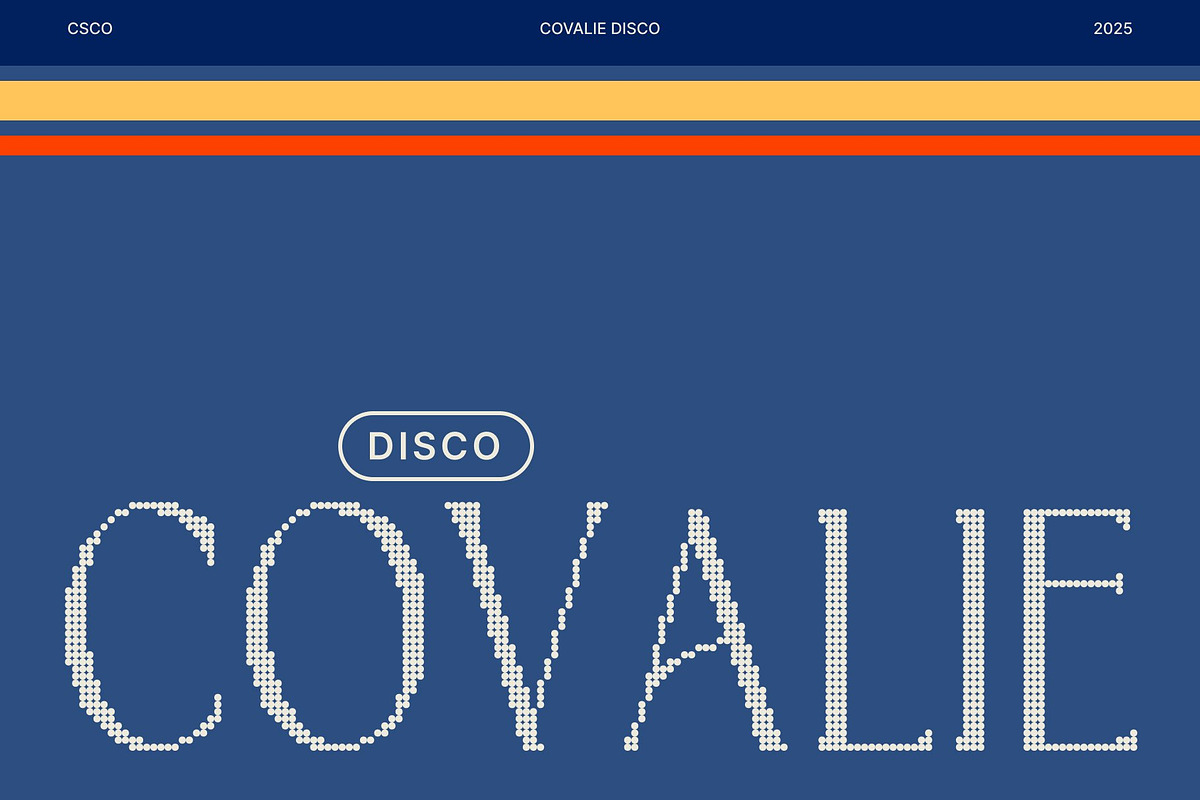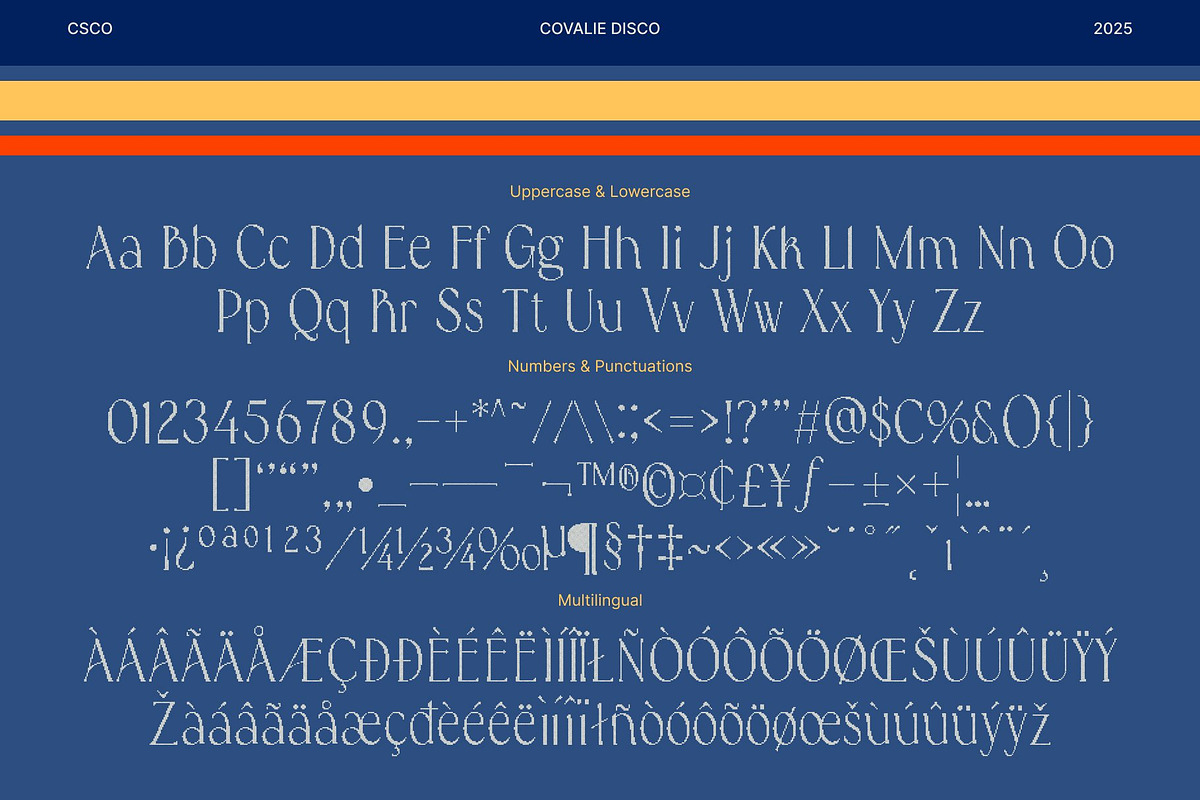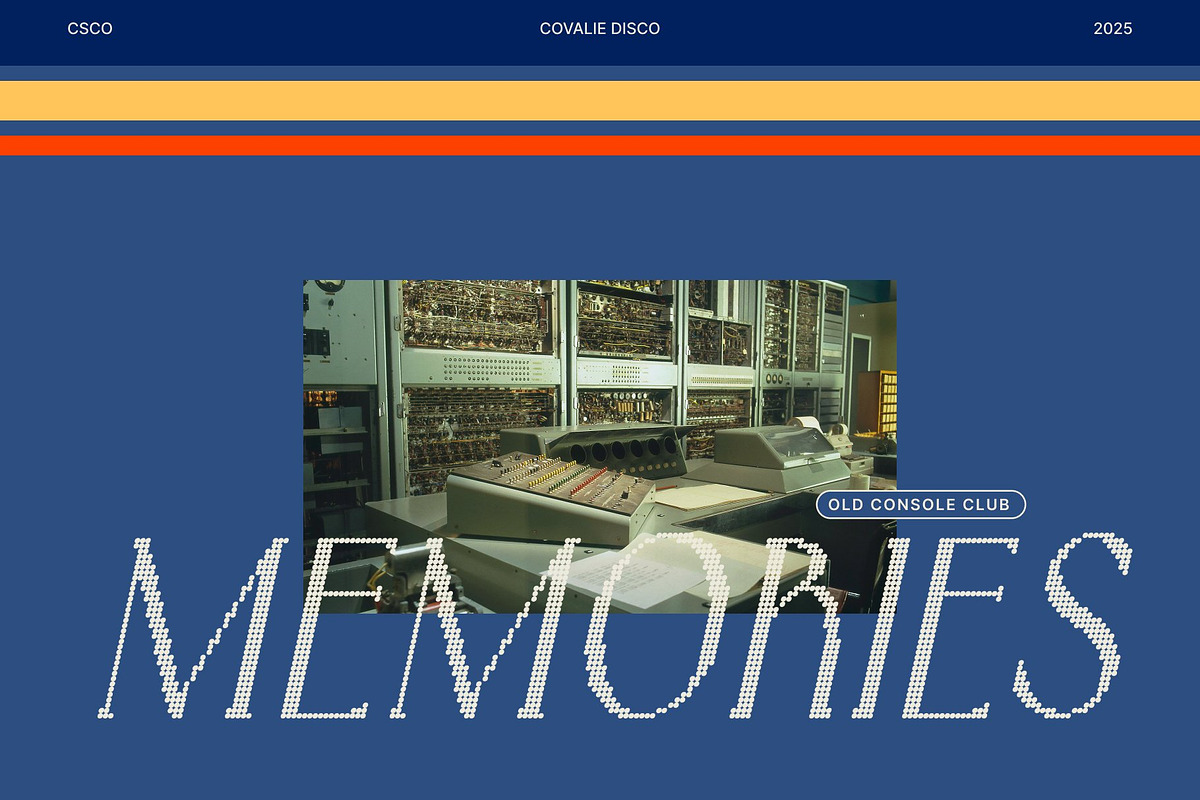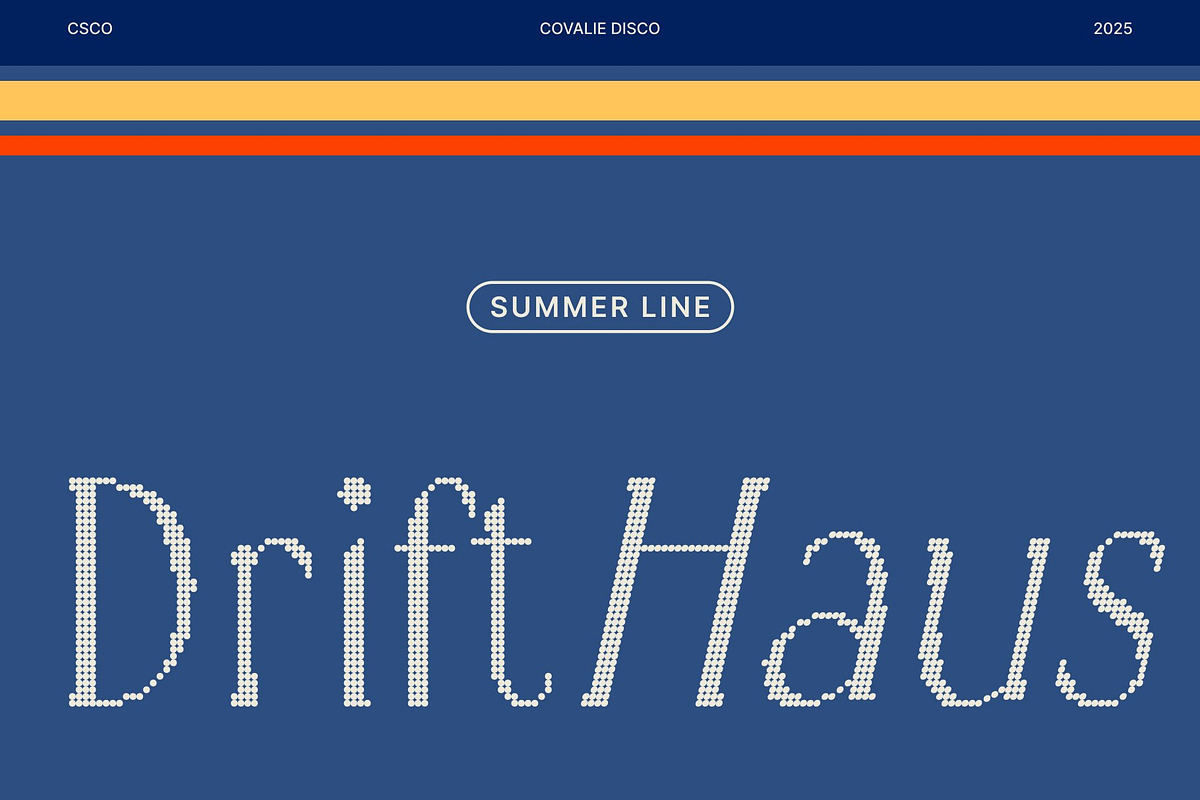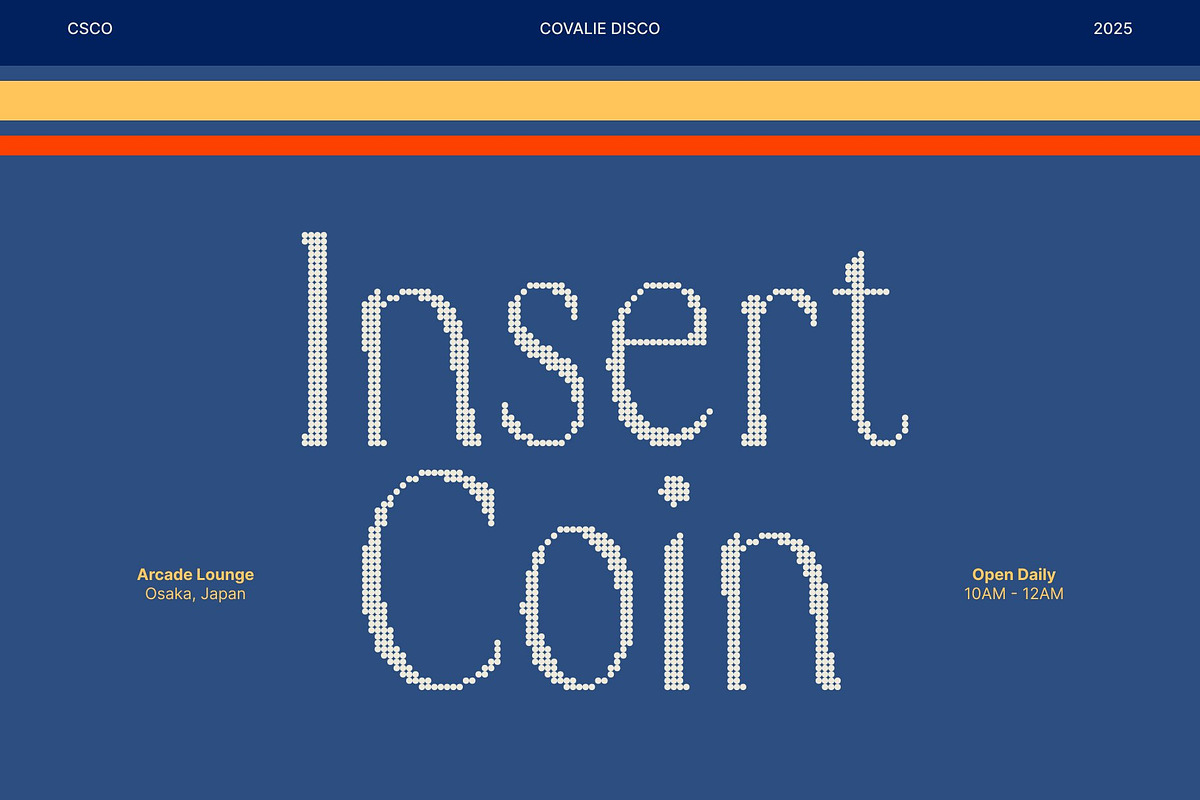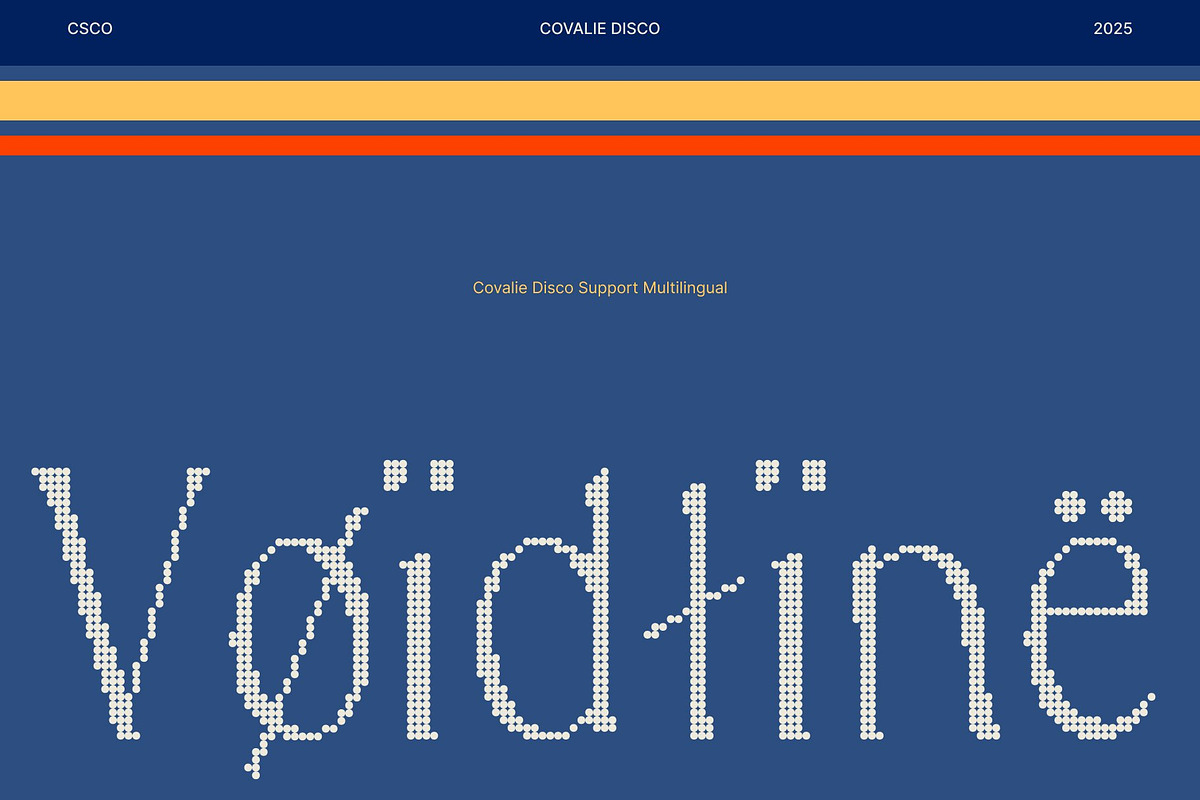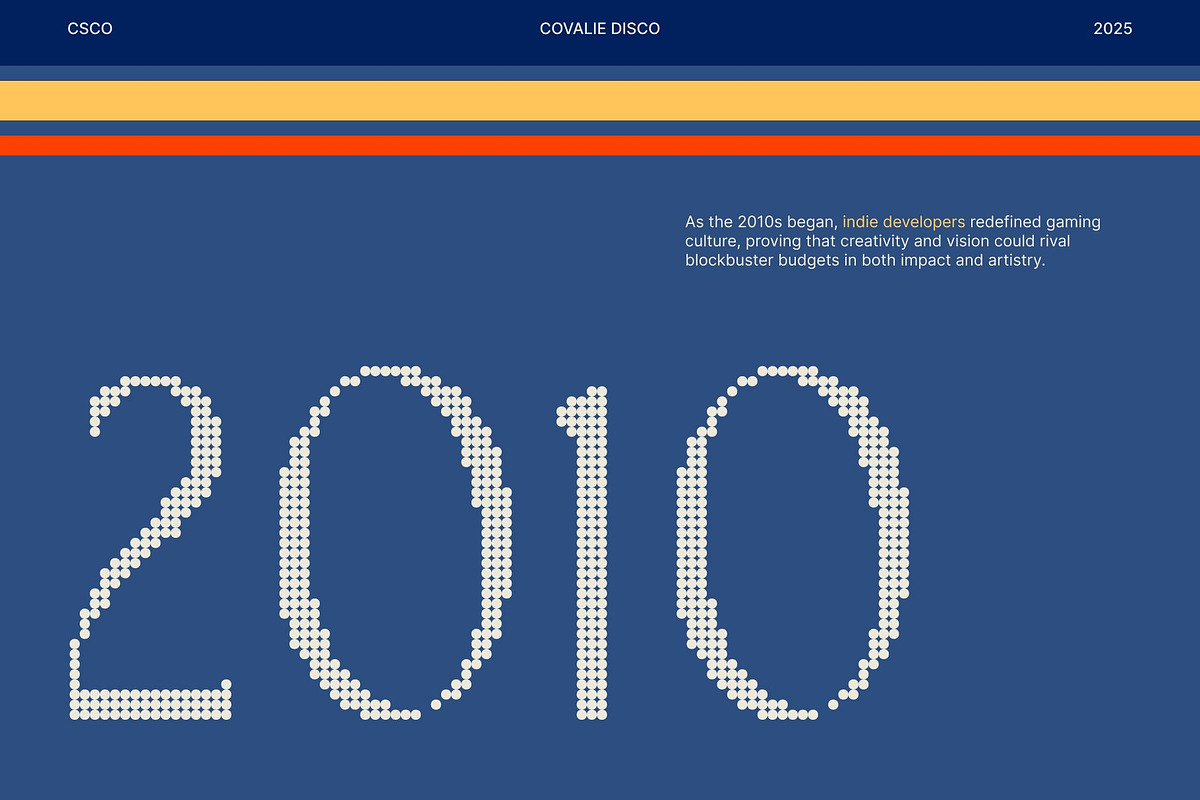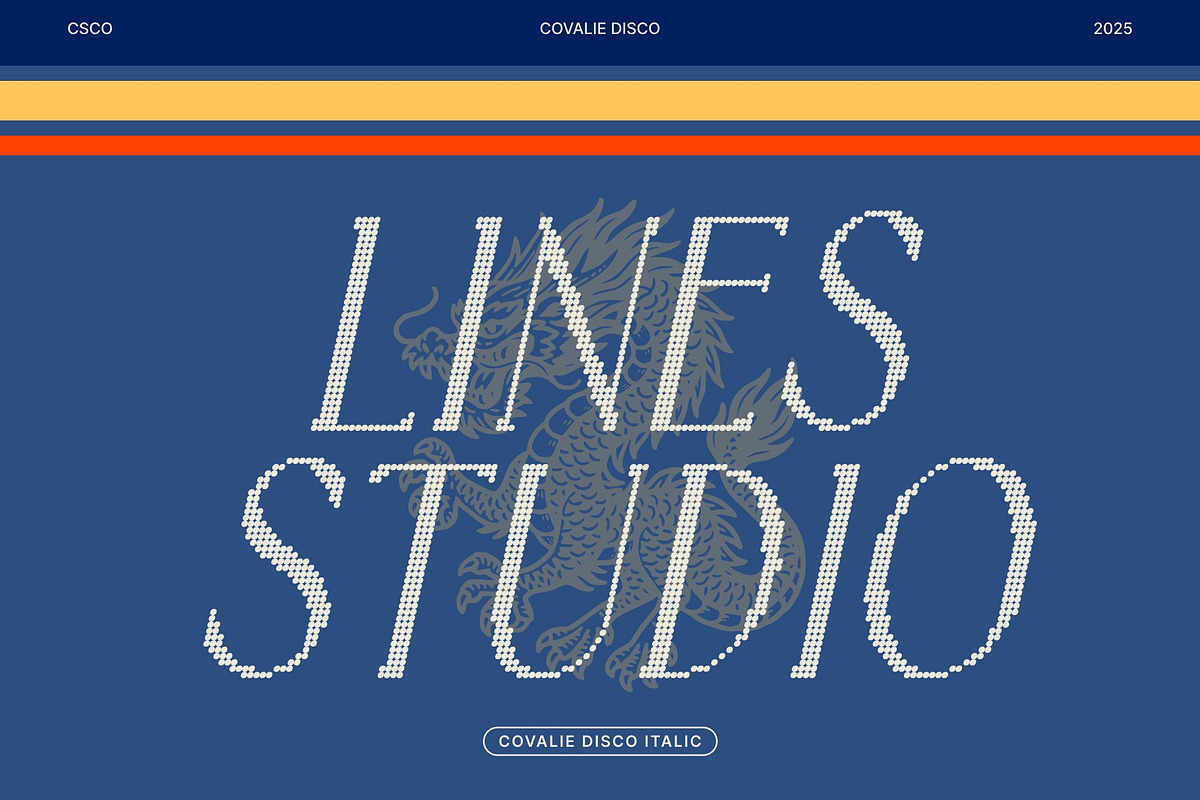
Covalie Disco
Covalie Disco – Timeless Elegance with a Shimmering Twist
Elegant Serif Font with Disco Charm This is an elegant serif display font that blends classic refinement with modern energy. Inspired by Renaissance typography, it brings a sense of heritage and sophistication, while the disco inspired shimmer infuses each letter with a lively, radiant touch.
Refined Curves for Luxurious Appeal Every curve in this font is crafted with precision, creating a sense of balance, beauty, and poise. The serif details enhance its luxurious tone, making it perfect for high-end design projects such as fashion editorials, book covers, and premium branding.
Disco Effect for Dynamic Sophistication The subtle disco effect adds sparkle and motion, transforming the classic serif into something more vibrant and captivating. This shimmering finish gives your typography a modern glow, ideal for designs that blend timeless class with contemporary flair.
Perfect for Editorial and Branding Design This font shines in editorial layouts, packaging, luxury branding, and creative projects that demand elegance with an edge. Whether used for titles or logos, it delivers a polished, professional, and unforgettable impression.
- Covalie Disco Regular
- Covalie Disco Italic